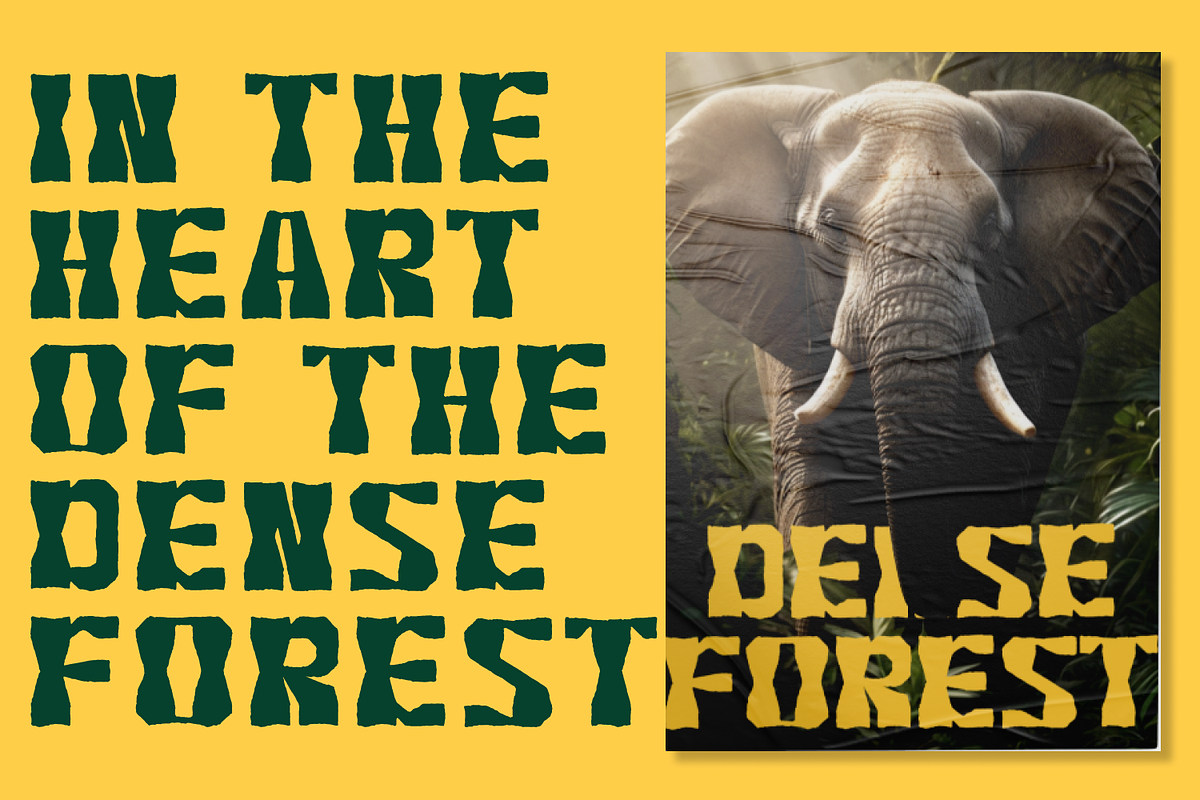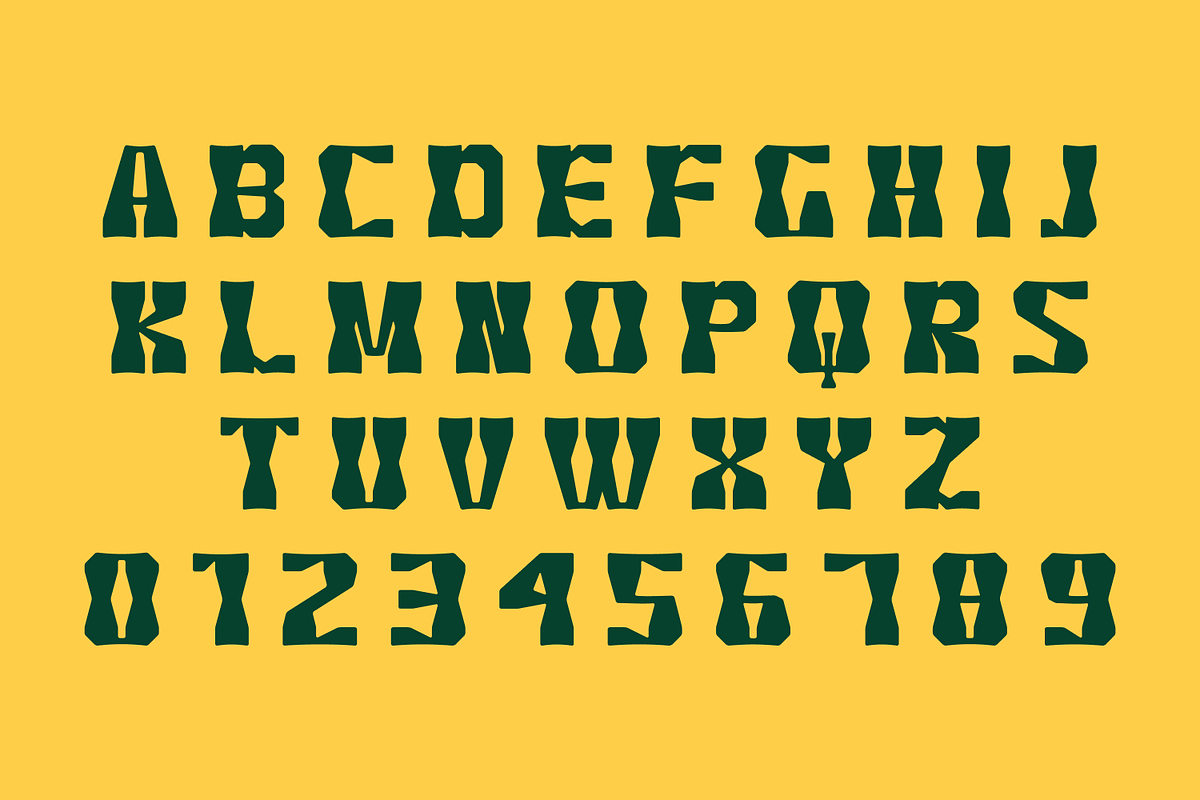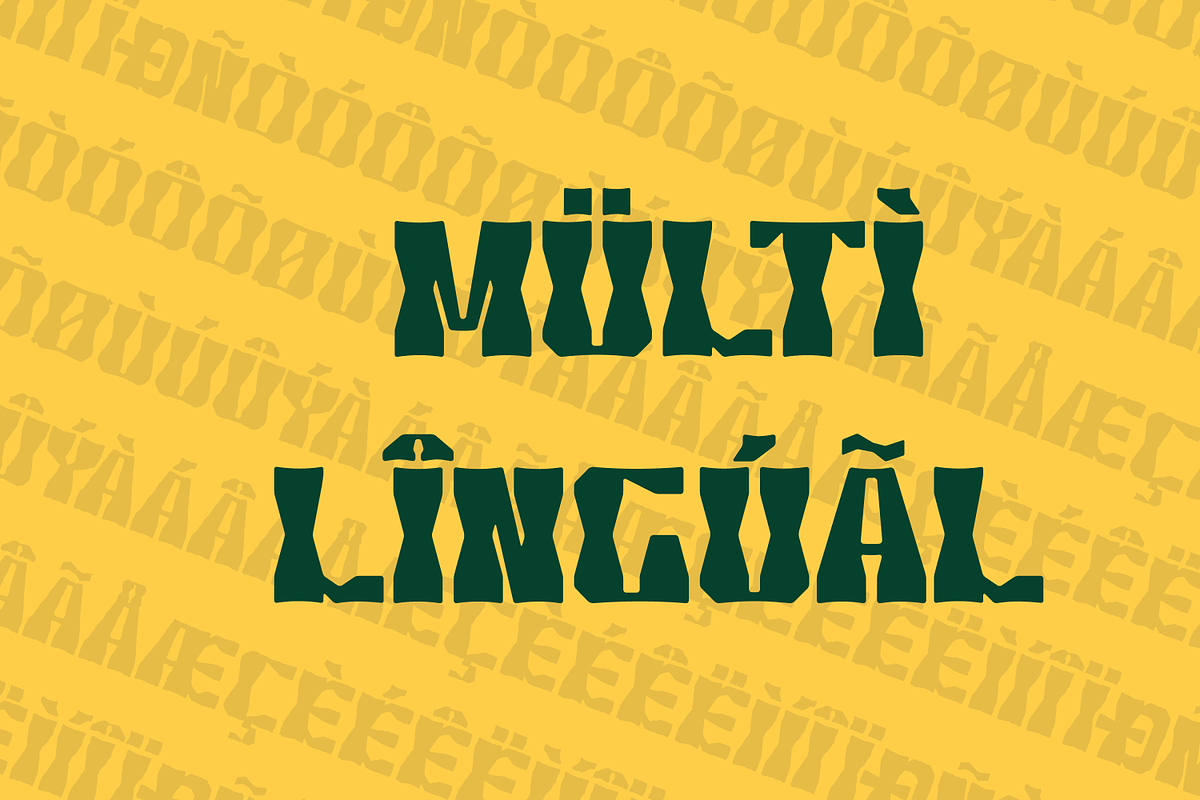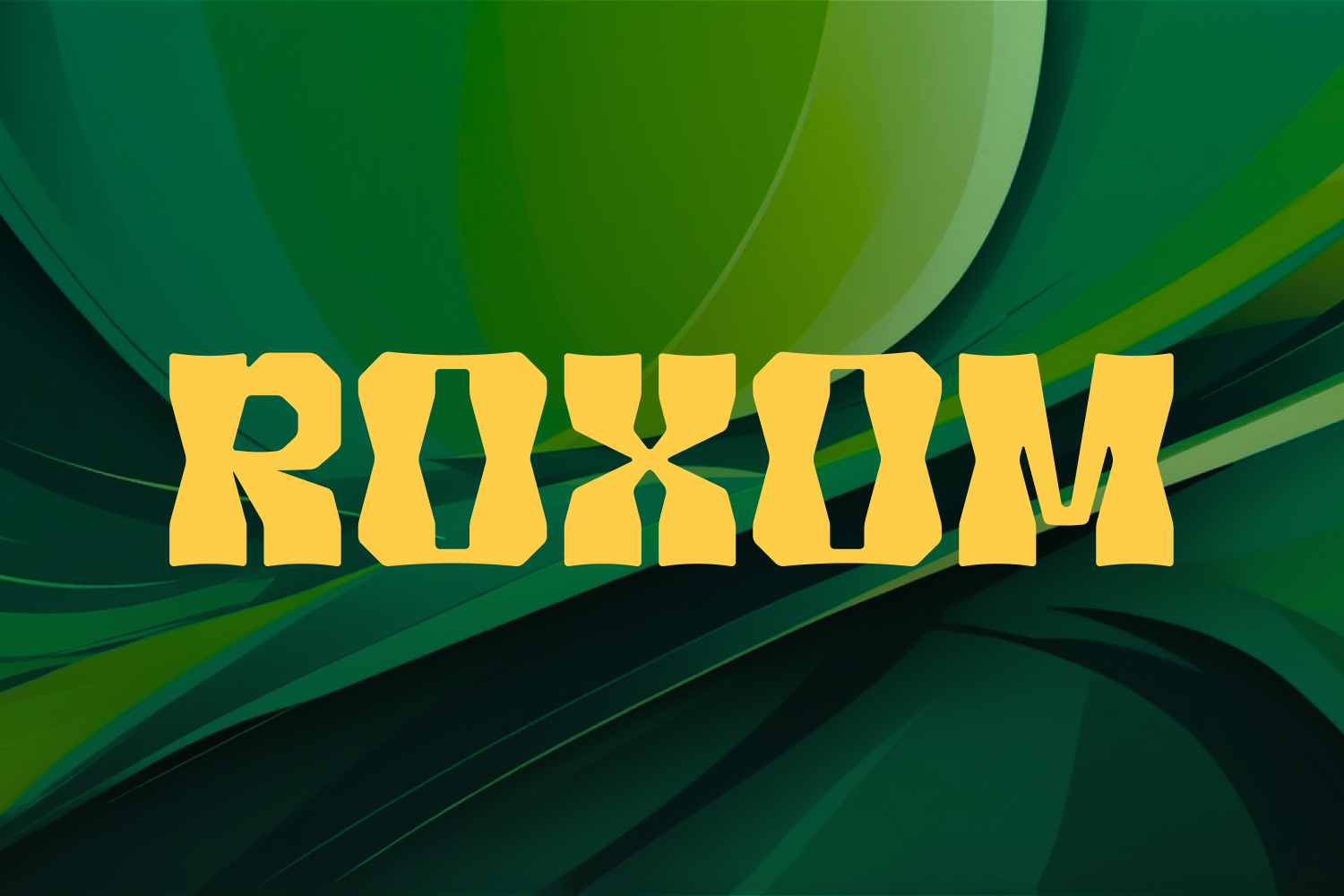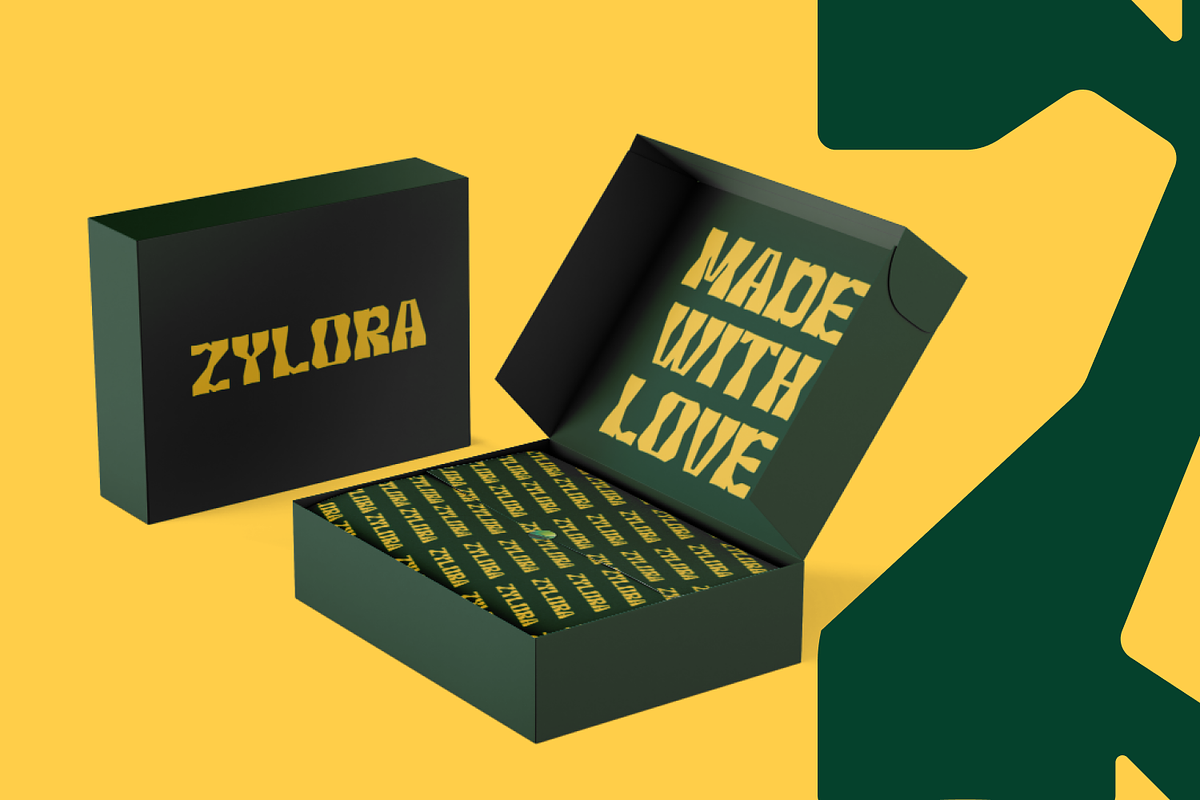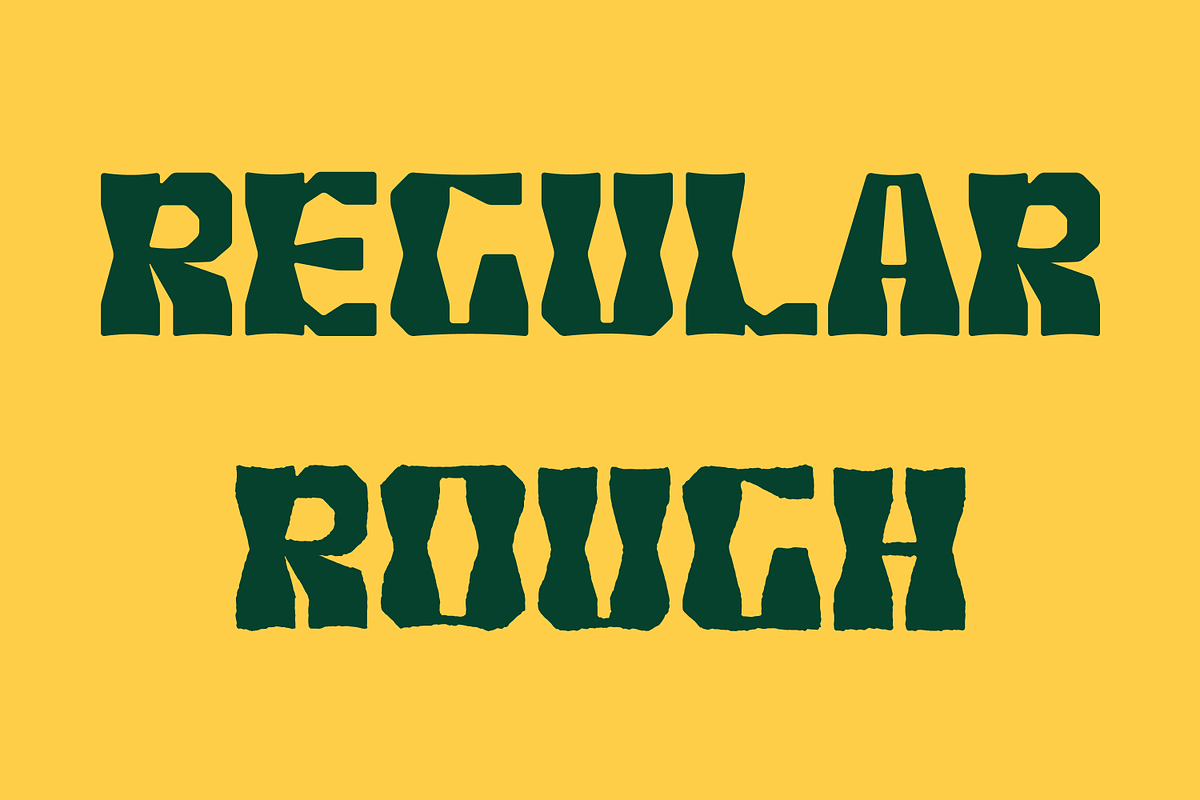
Roxom Font
Roxom is a bold and distinctive typeface designed to make a statement. Featuring a regular, rough style, Roxom combines strong uppercase lettering with a touch of ruggedness, making it perfect for impactful headlines and striking designs. Its bold presence is complemented by its multilingual support, ensuring versatility and accessibility across various languages. The font's unique texture and commanding form are ideal for creating eye-catching graphics and memorable brand identities.